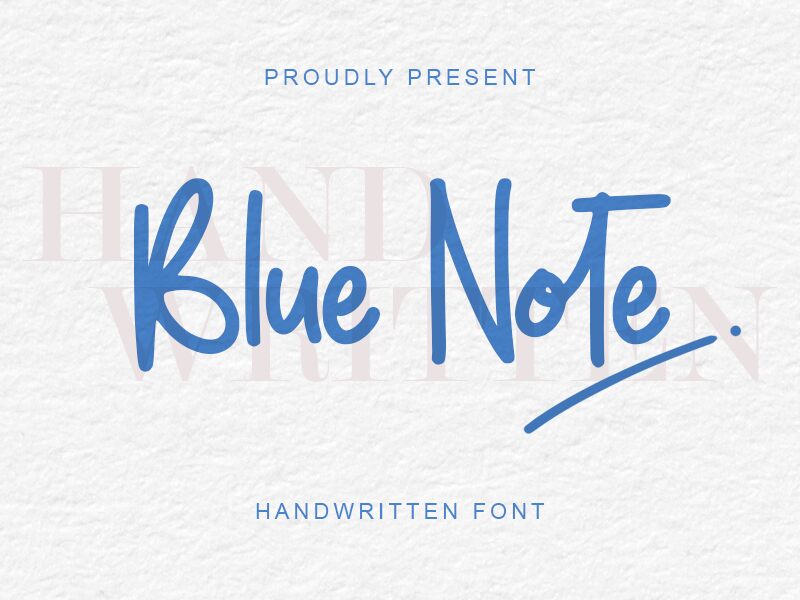
Blue Note, a handwritten masterpiece by Alif Ryan Zulfikar, is a semi-light, semi-condensed font that exudes an organic and personal touch. Its artful strokes capture the essence of spontaneity paired with elegance, making it exceptionally versatile for various creative endeavors.
The aesthetic appeal of Blue Note lies in its ability to offer a hint of casual sophistication that can elevate the design of invitations, branding materials, and editorial content alike. Its semi-condensed width ensures legibility while maintaining an airy composition, perfect for designers seeking to impart a distinctive handwritten character without compromising on clarity and readability.